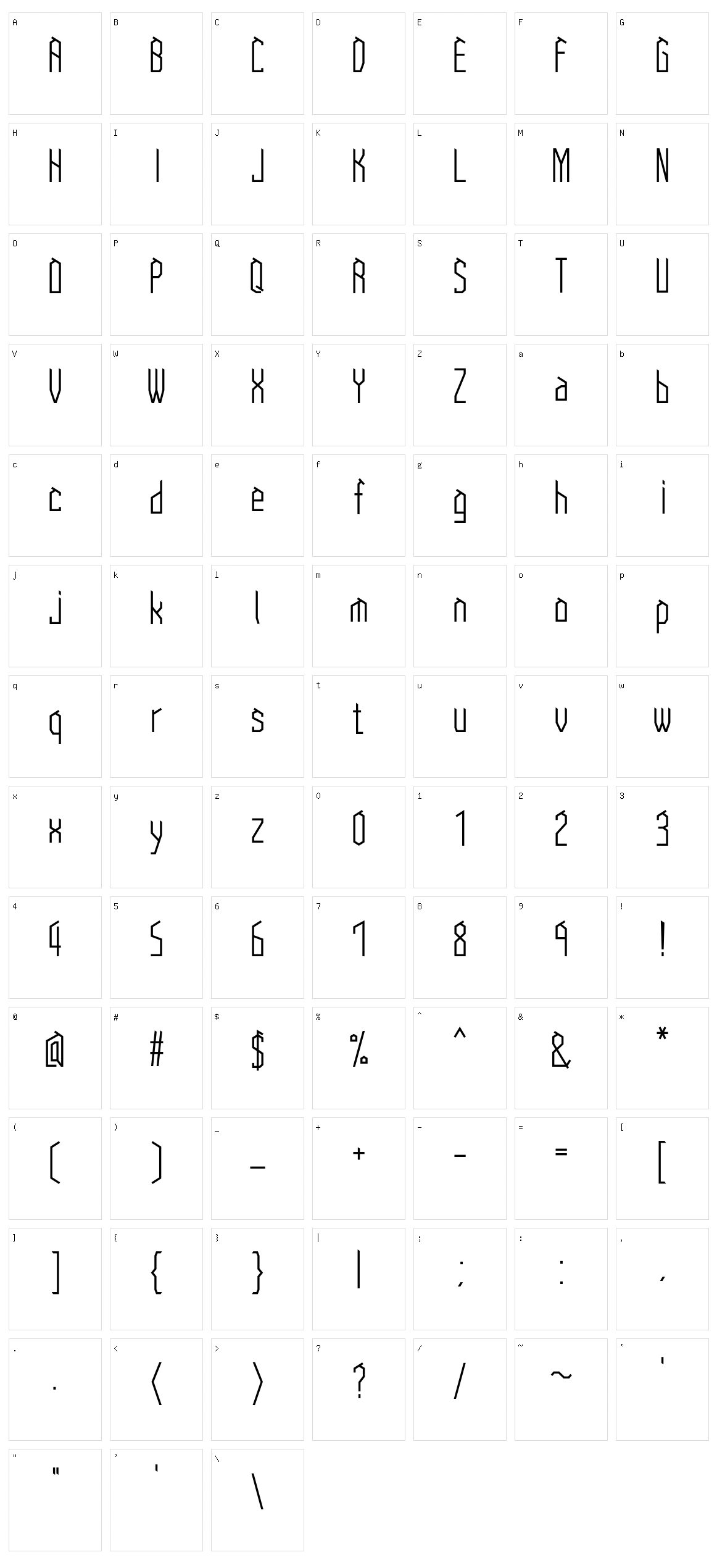
The free font Crooked is carefully designed by green egg, showcasing a thoughtful balance of creativity and usability and falls under the Square font style. When you download the ZIP file, it contains only 28.97 KB of font files, making it lightweight and quick to download. Please review the license details below to understand permitted usage and distribution rights. If license information is not available, we recommend using this font for personal projects only or contacting the author directly for commercial usage permissions.